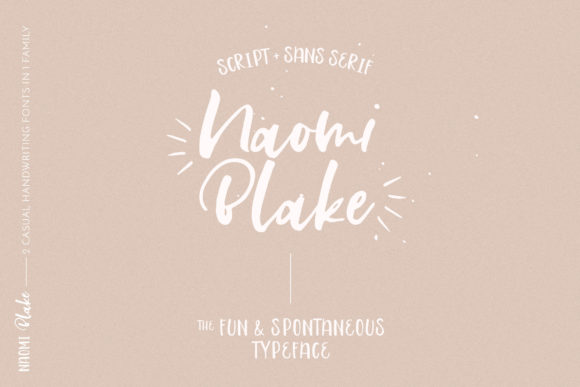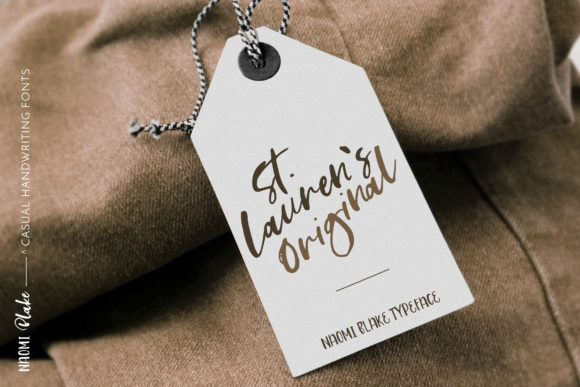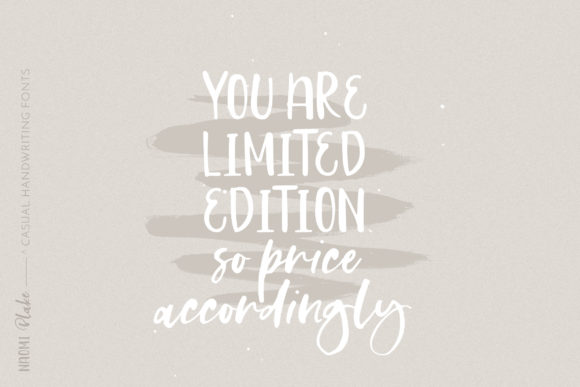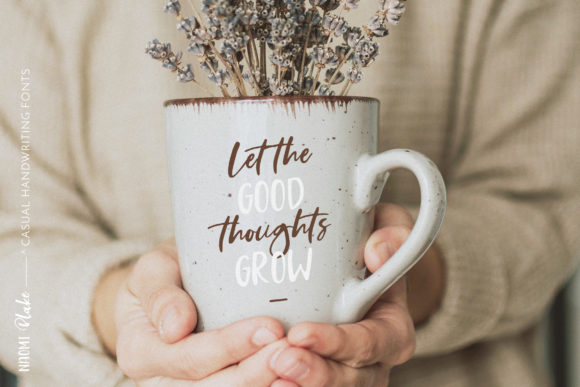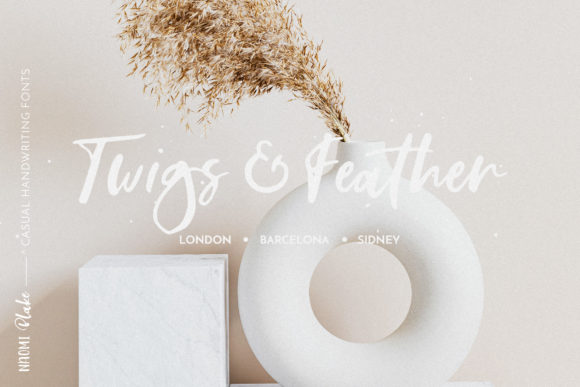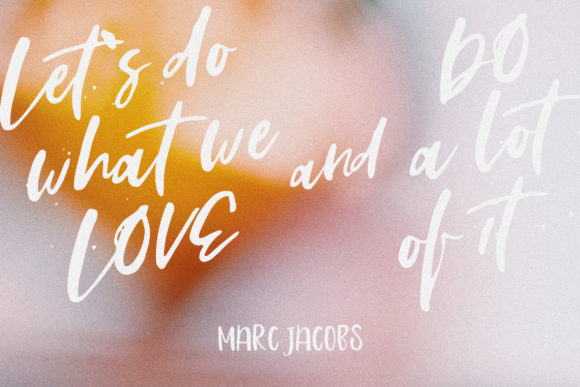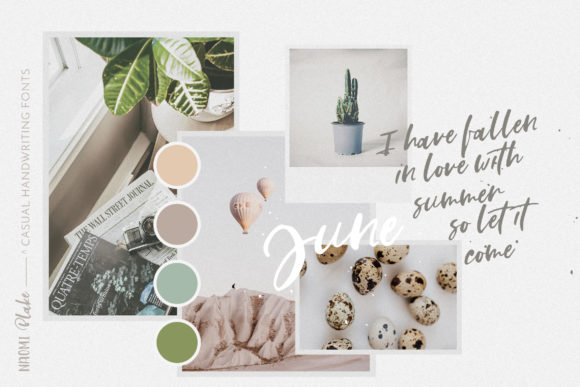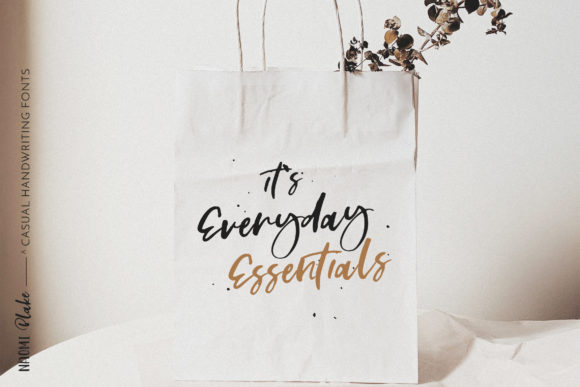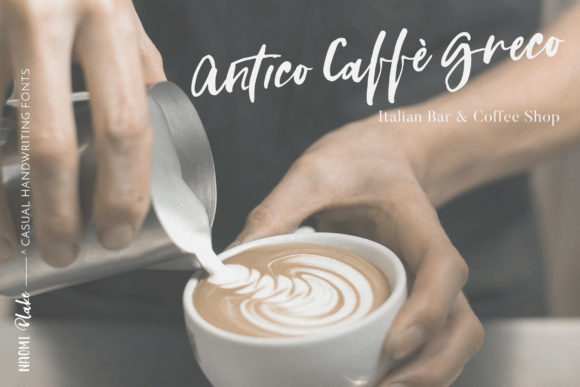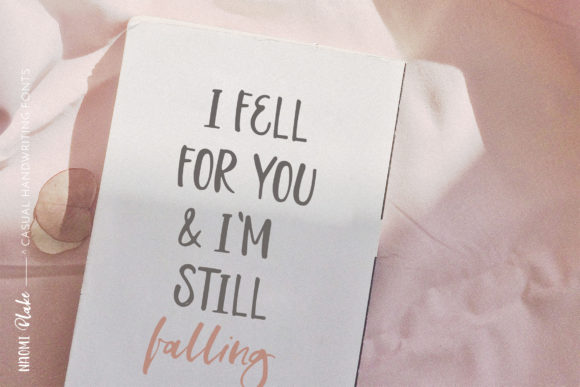
Naomi Blake Font
About Naomi Blake Font
Naomi Blake is a spectacular duo font (serif and script). Incredibly versatile, this font fits a wide pool of designs, elevating them to the highest levels. Add this font to your favorite creative ideas and notice how it makes them come alive!